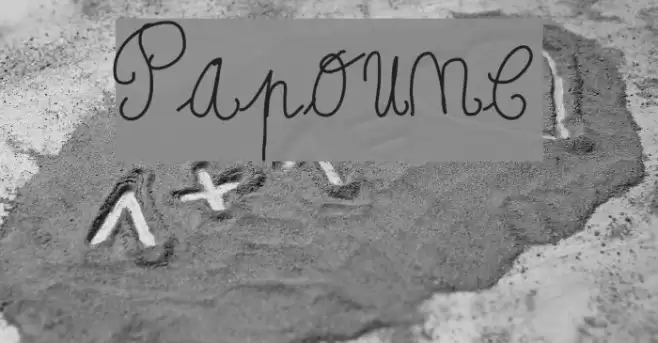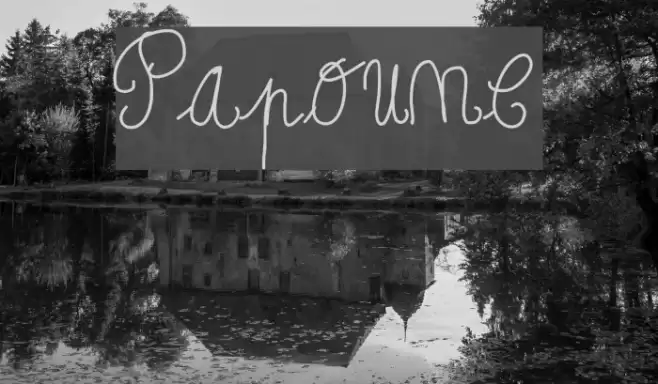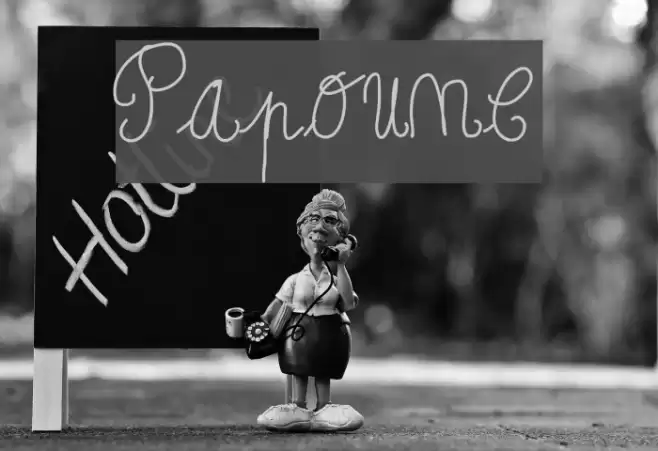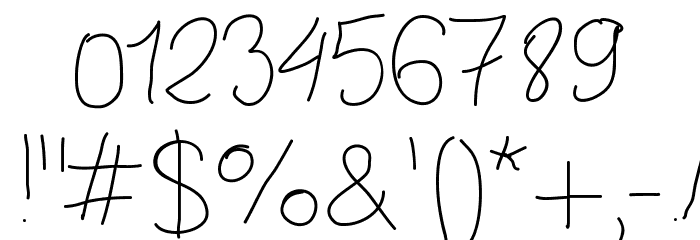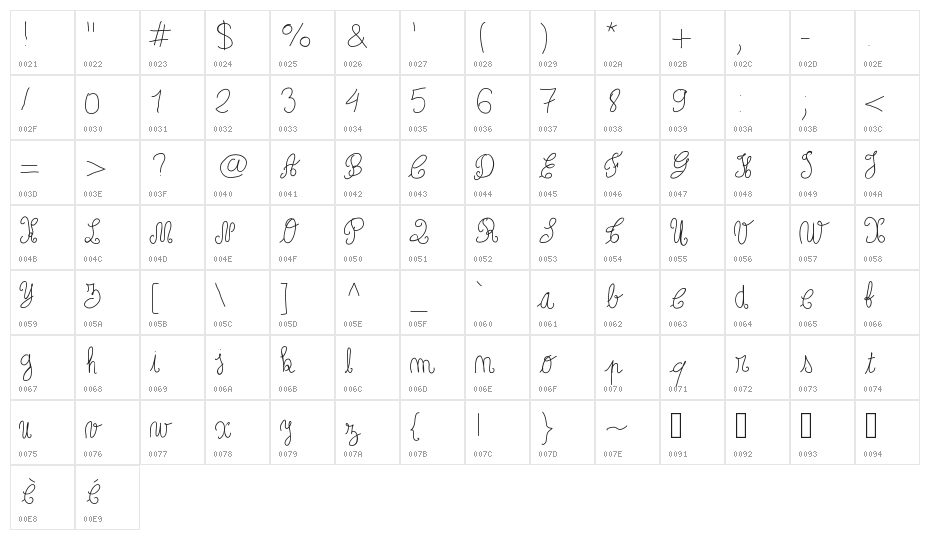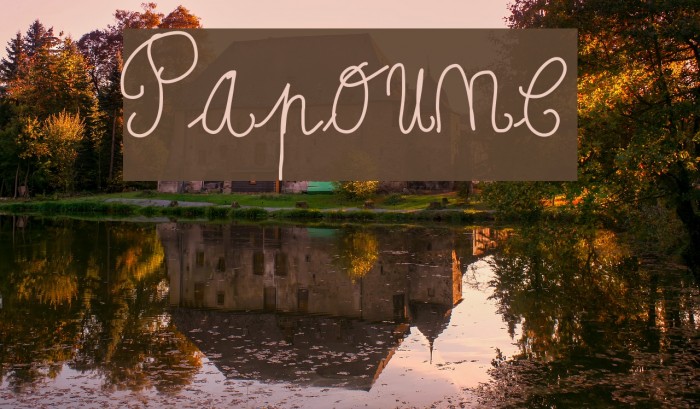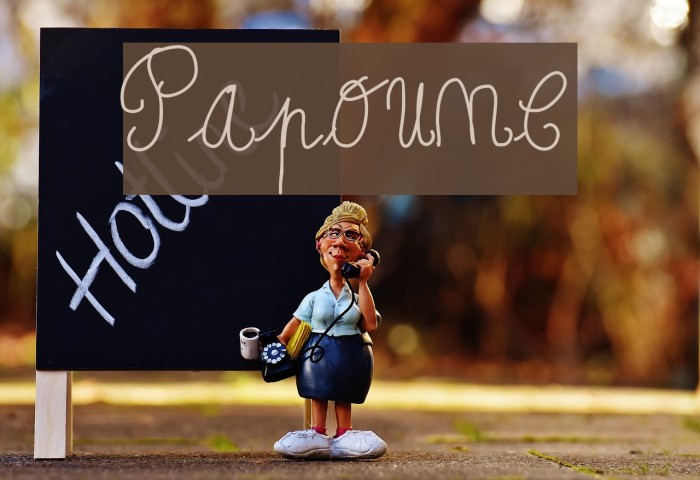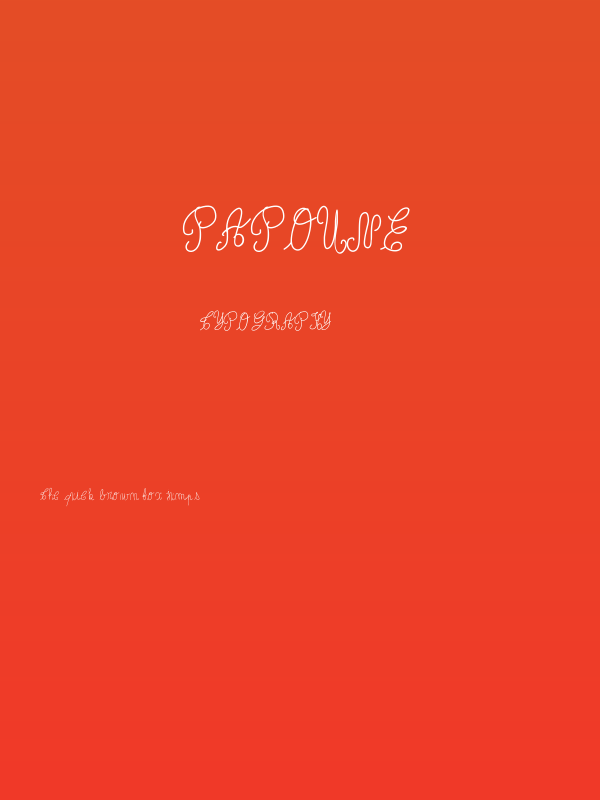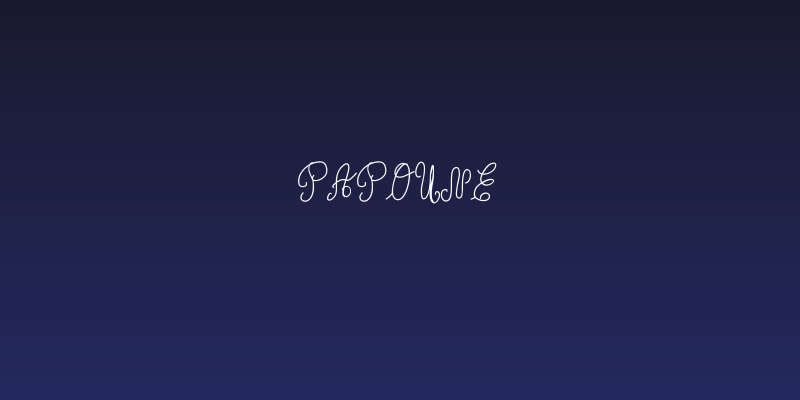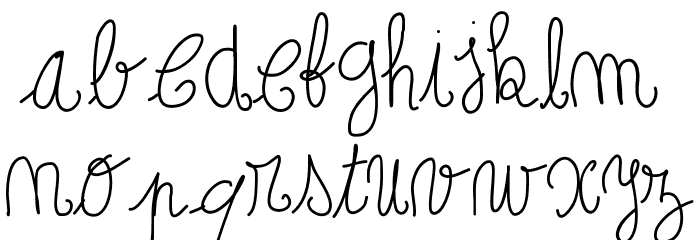
Papoune Font
Papoune Description
This font features a playful and whimsical script style, characterized by its flowing, interconnected letters. The uppercase letters exhibit a sense of elegance with their looping strokes and smooth curves, while the lowercase letters maintain a consistent fluidity that complements the overall design. The numerals are distinct and maintain the same playful quality, ensuring readability. Special characters are creatively integrated, adding to the font's charm. The overall appearance is both decorative and approachable, making it suitable for a variety of creative applications.
A playful and whimsical script font with flowing, interconnected letters from Uncategorized fonts.
- Proposed Projects: Ideal for greeting cards, invitations, playful branding, and creative projects that require a touch of whimsy.
- Use Case: Logos, Invitations, Greeting Cards